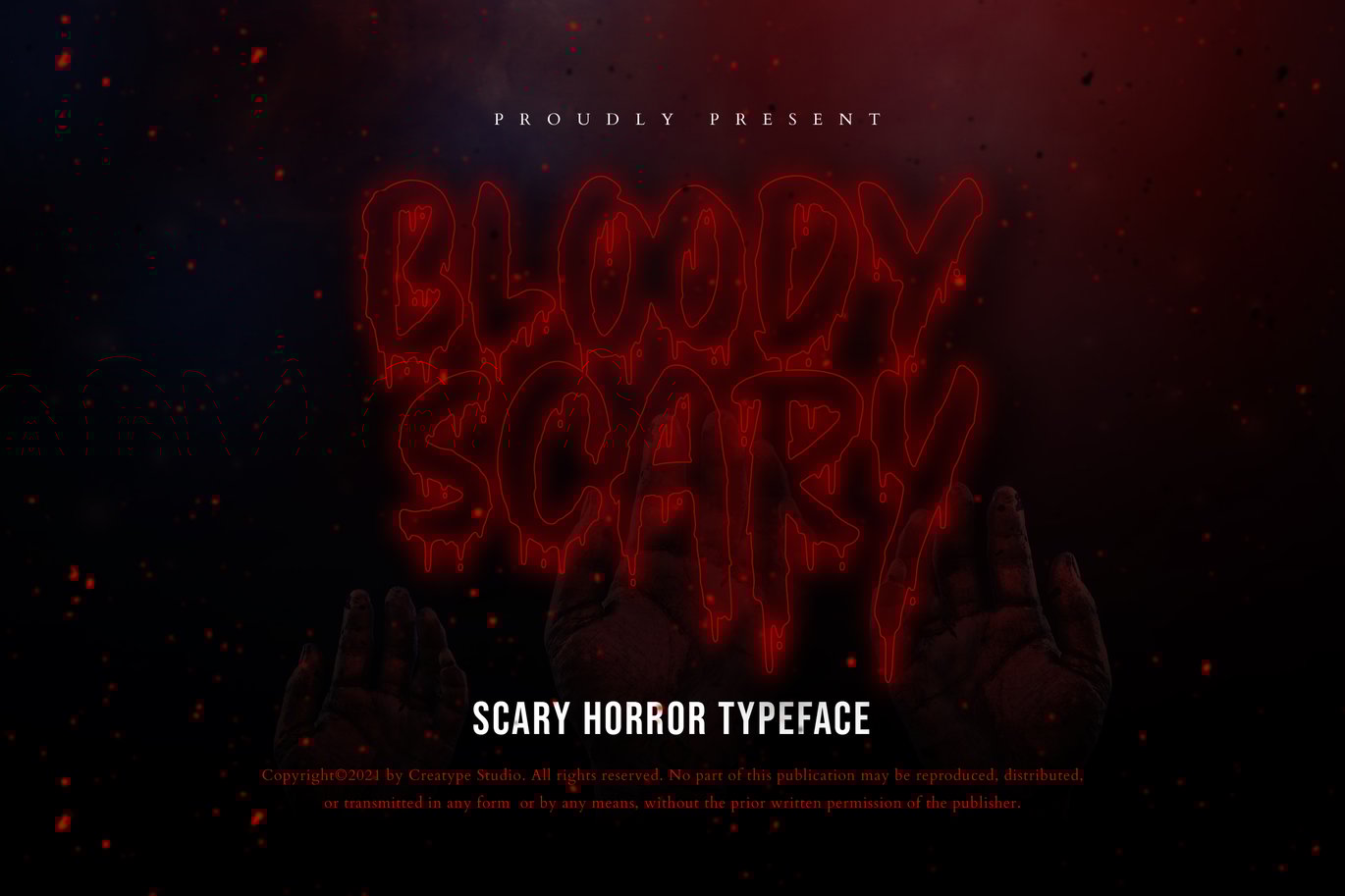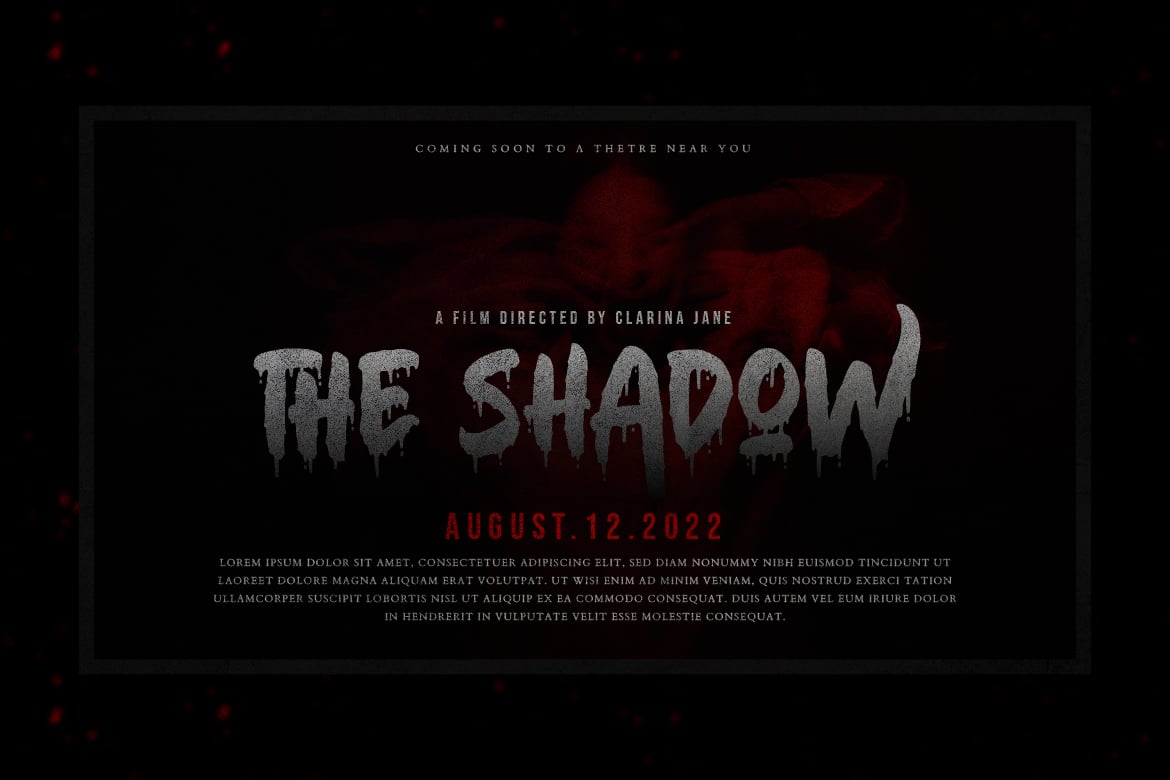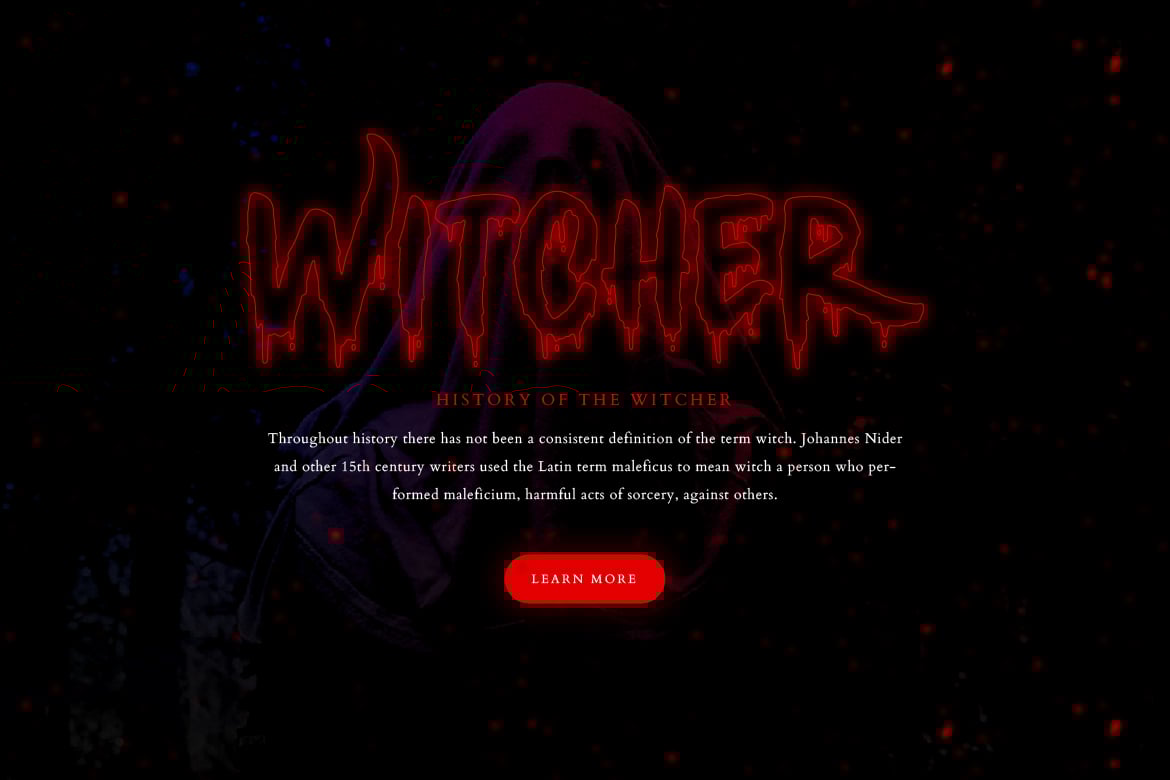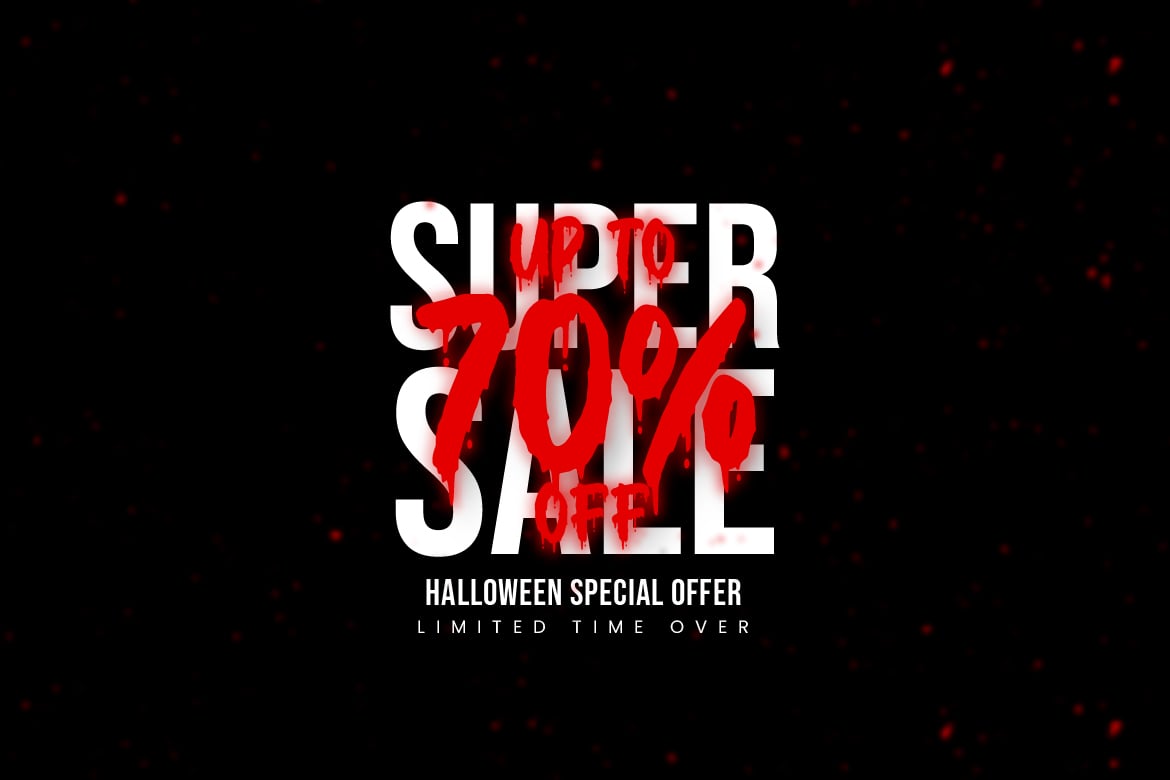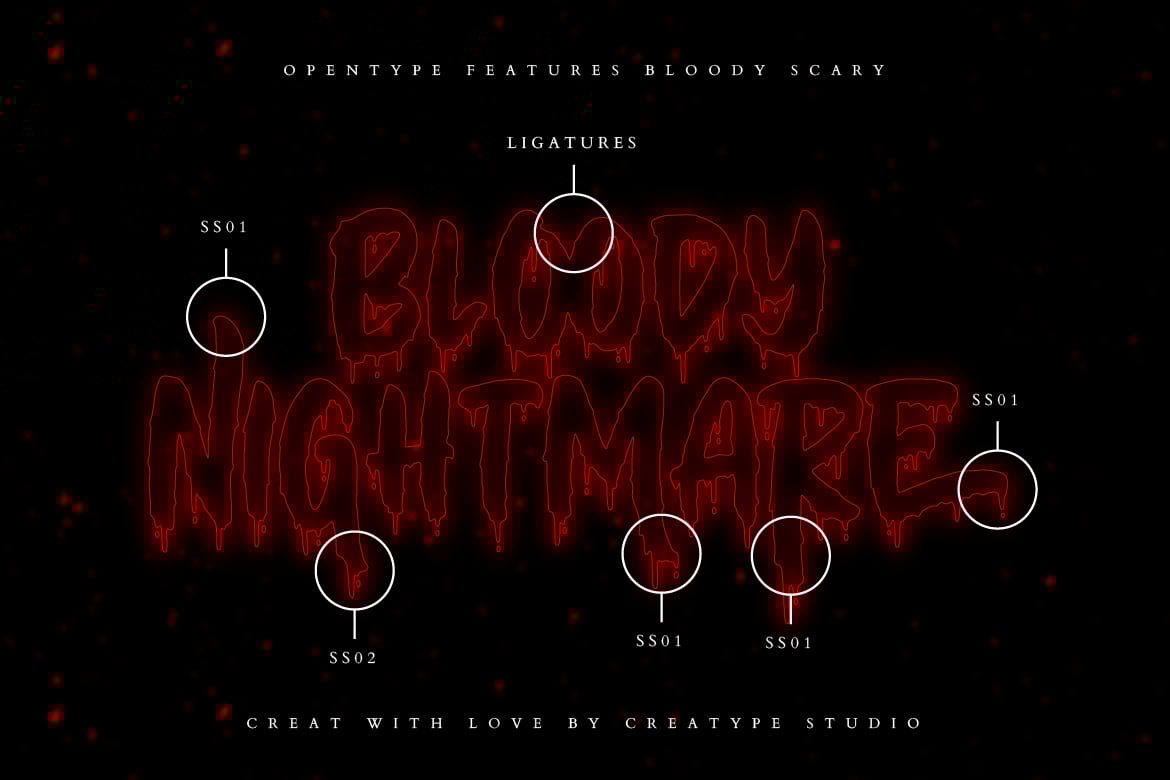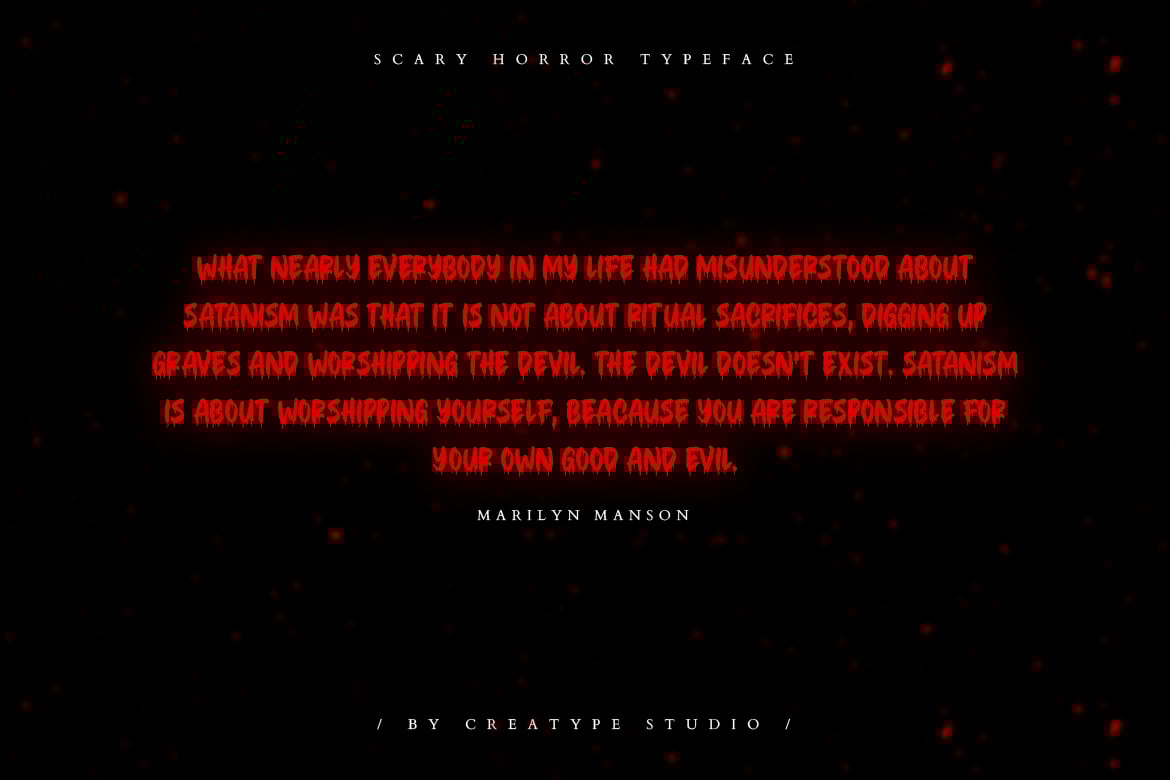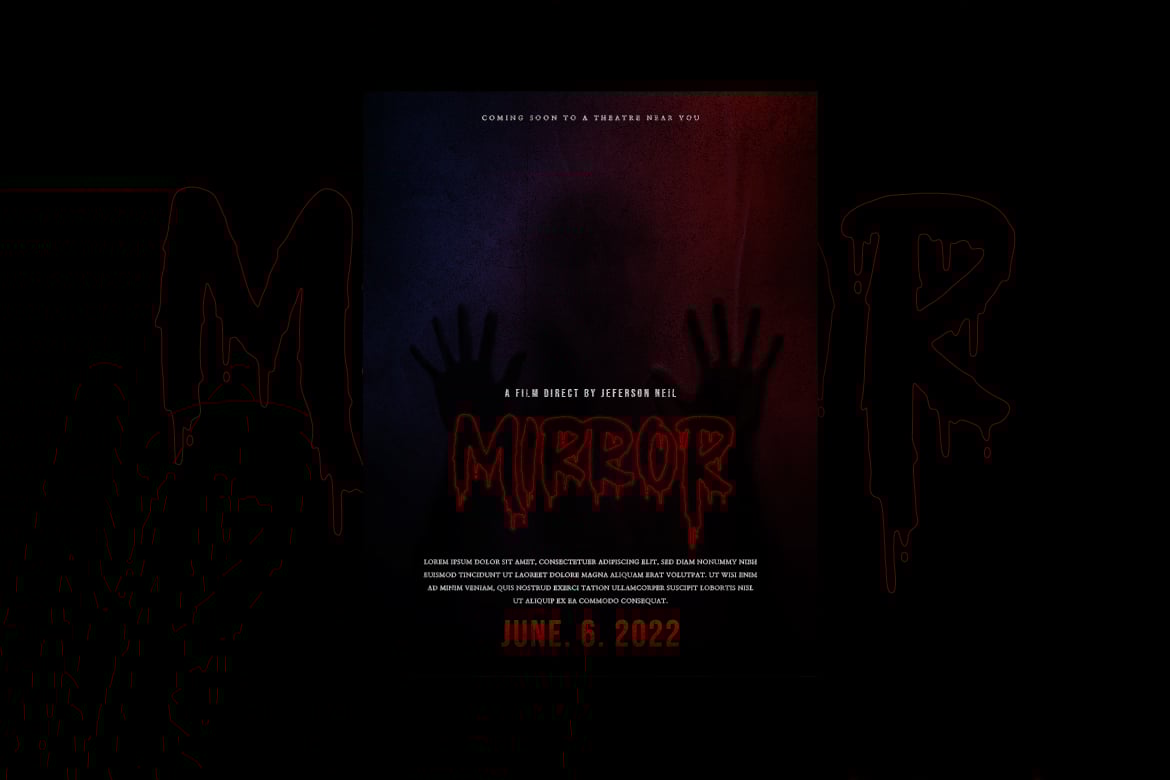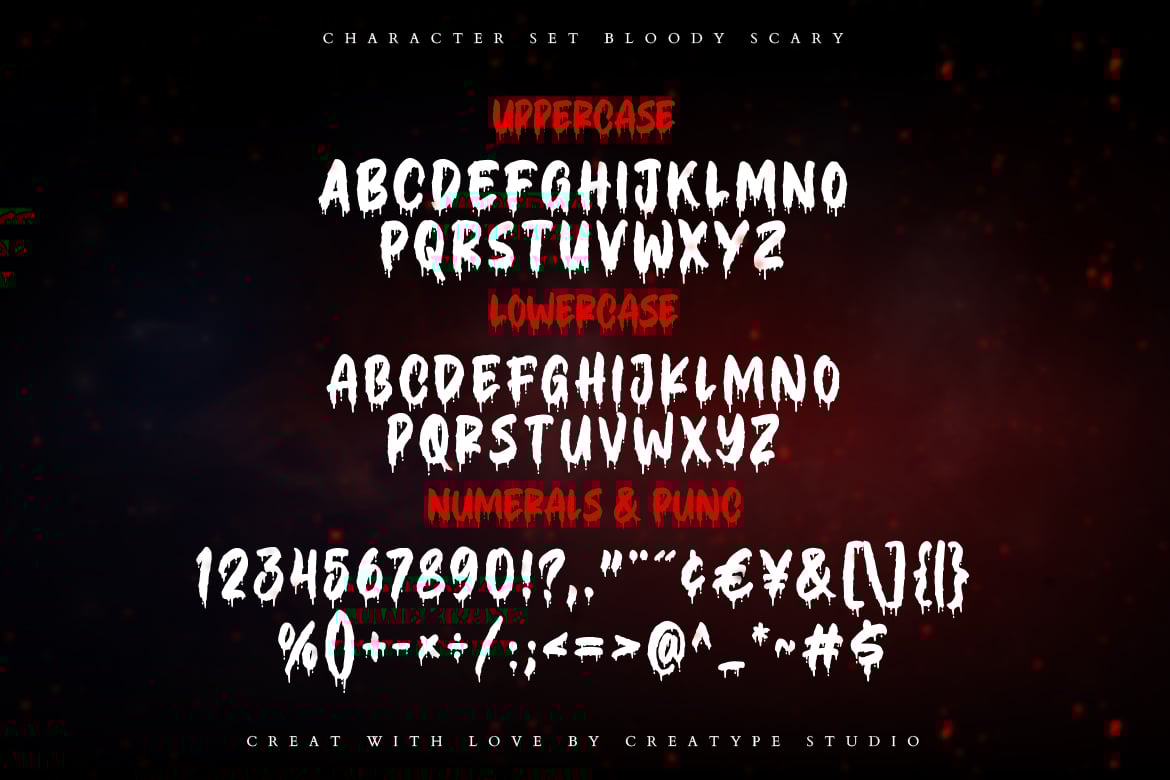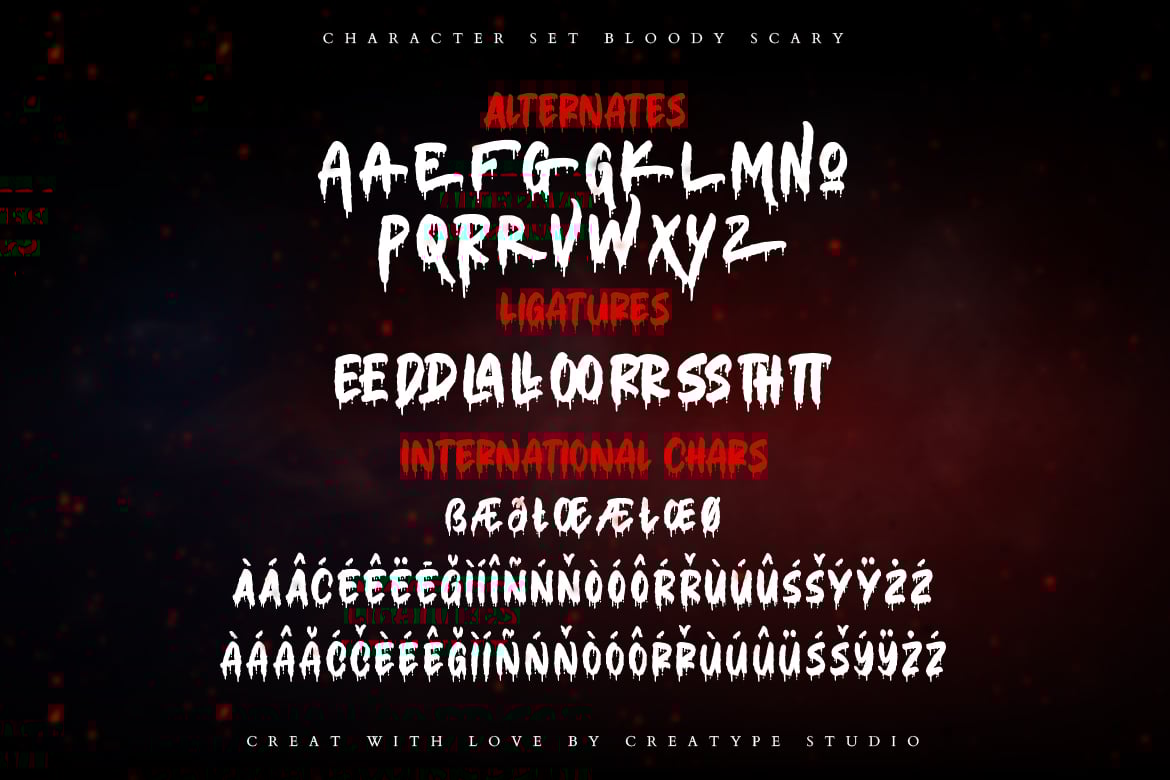
Bloody Scary Horror Halloween Font
Bloody Scary is a scary horror typeface especially created by experts, resulting in this amazing font. This font is impressive, with its natural-looking brushed appearance making it a perfect fit for your large projects.
Bloody Scary is perfect for branding projects, logo, wedding designs, social media posts, advertisements, product packaging, product designs, label, photography, watermark, invitation, stationery and any projects that need handwriting taste.
- Ton of glyphs
- Ligature & Alternate